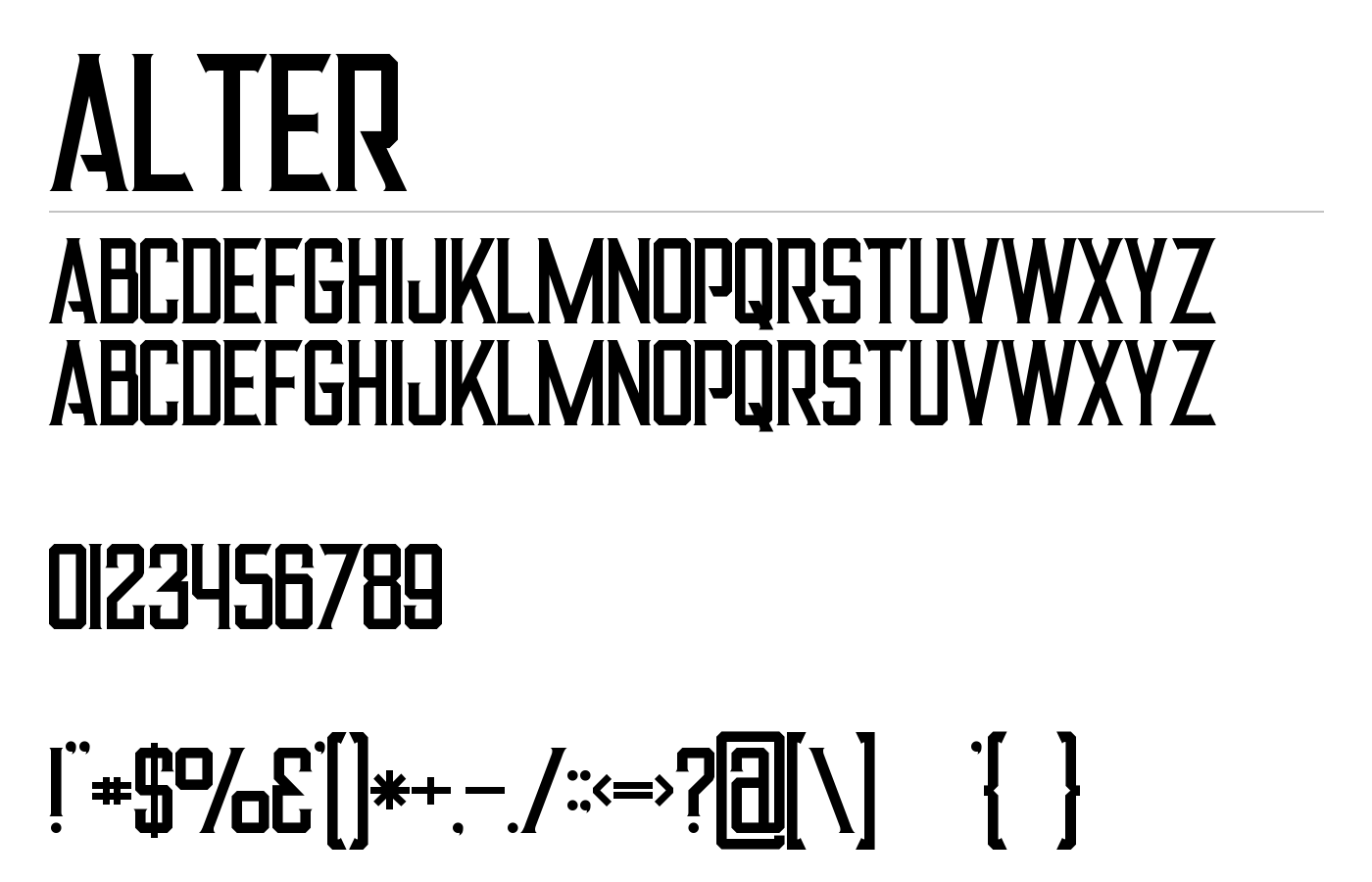
Alter Regular is a bold, condensed serif font with sharp, geometric edges and high contrast between thick and thin strokes, giving it a strong, impactful appearance. Its uppercase-only style and angular letterforms convey a modern, industrial feel suited for striking headlines, logos, and branding that demand attention and a sense of strength. This font works well in designs needing a bold, authoritative presence with a contemporary twist.